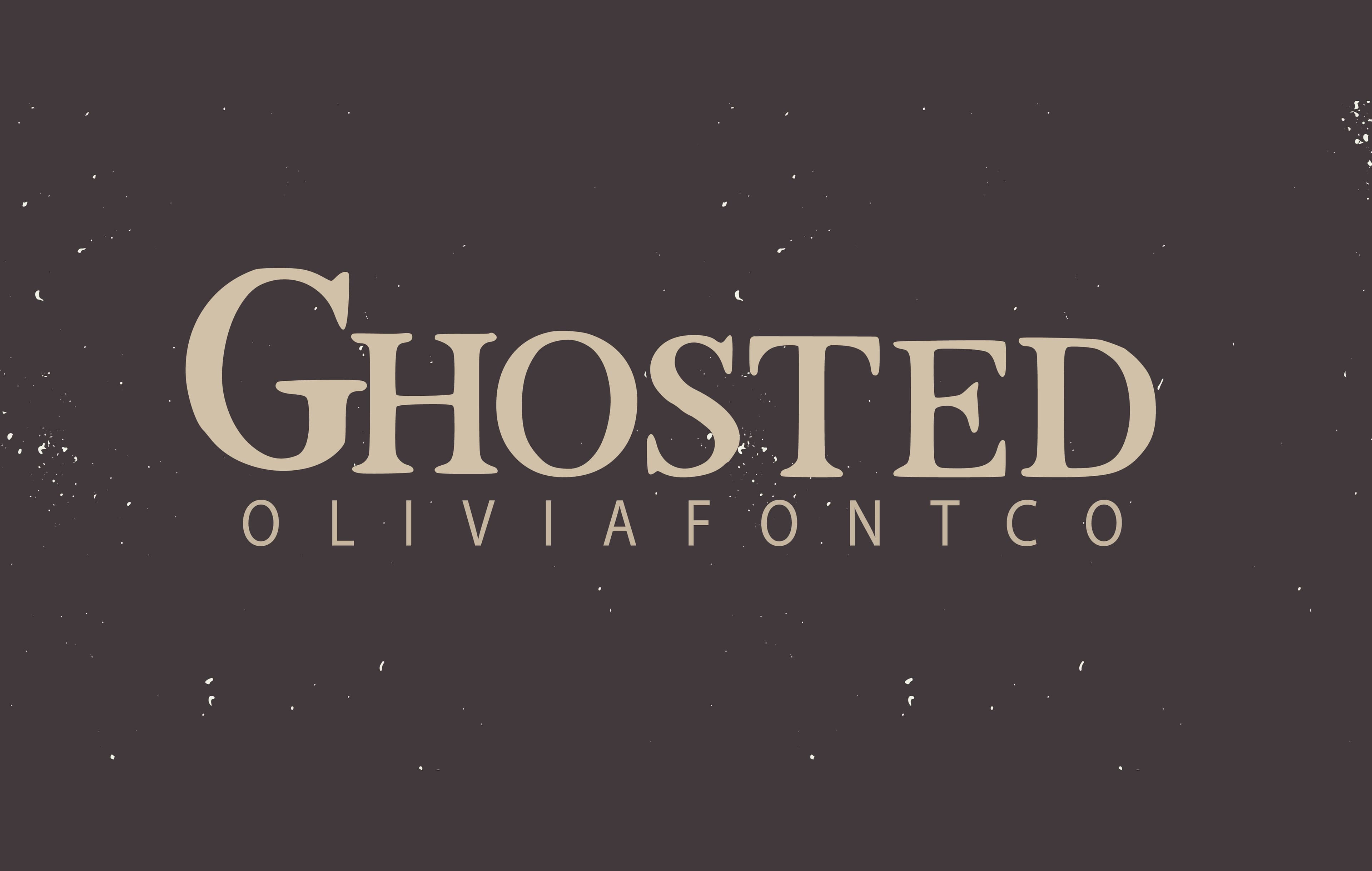
Ghosted Font: ๐ Check out Ghosted Font now! Explore this ๐ blackletter fonts and claim your ๐ free download here. Let's start crafting together! ๐ Ghosted font is an authentic handwritten font with a romantic touch. Expertly designed to be a true...